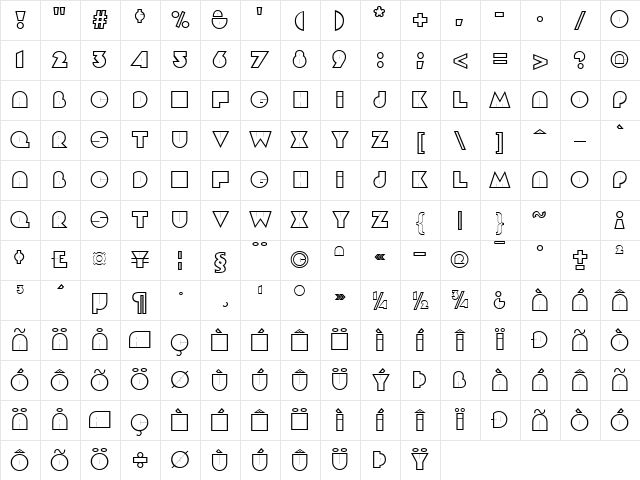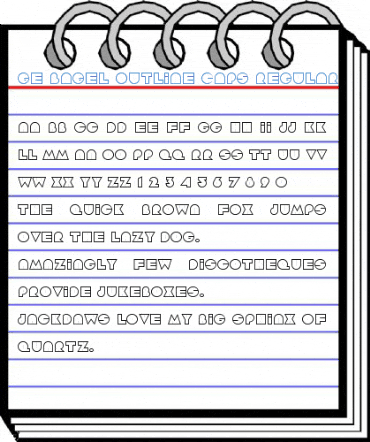
GE Bagel Outline Caps Regular
Design Context for GE Bagel Outline Caps
GE Bagel Outline Caps is built around its visual character rather than neutral utility - its distinctive forms are designed to make an impression at display sizes.
Suited to editorial headers, event branding, and any context where the font itself is part of the message.
Font Pairing: Pair with a clean neutral sans-serif for body copy to let GE Bagel Outline Caps's character lead without overwhelming the composition.
Pro Tip: Use GE Bagel Outline Caps exclusively at display sizes - it was designed to be seen, not read at length. Let a neutral companion handle body copy.